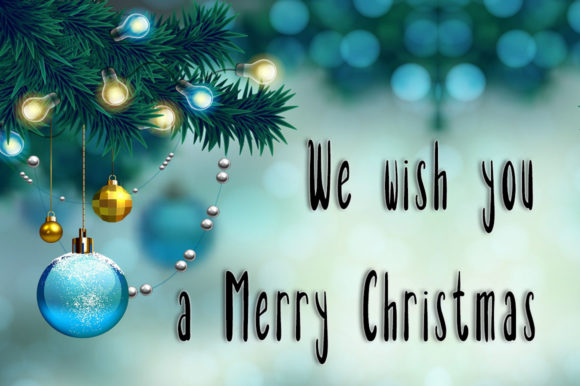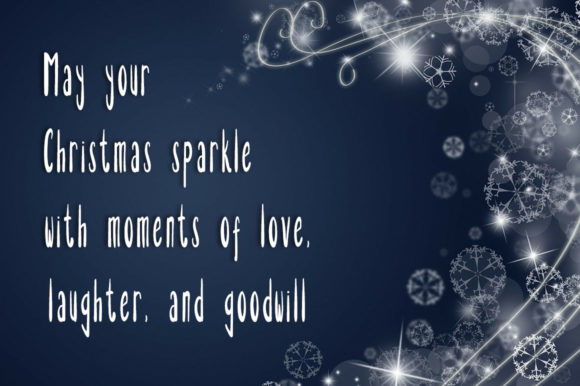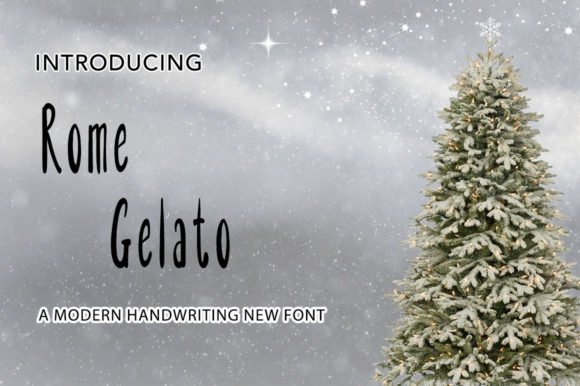
Introduction to Rome Gelato Font
Rome Gelato is a cute and casual handwritten font.
Whether you’re looking for fonts for Instagram or calligraphy scripts for DIY projects, Rome Gelato will turn any creative idea into a true piece of art .
Key Features of Rome Gelato Font